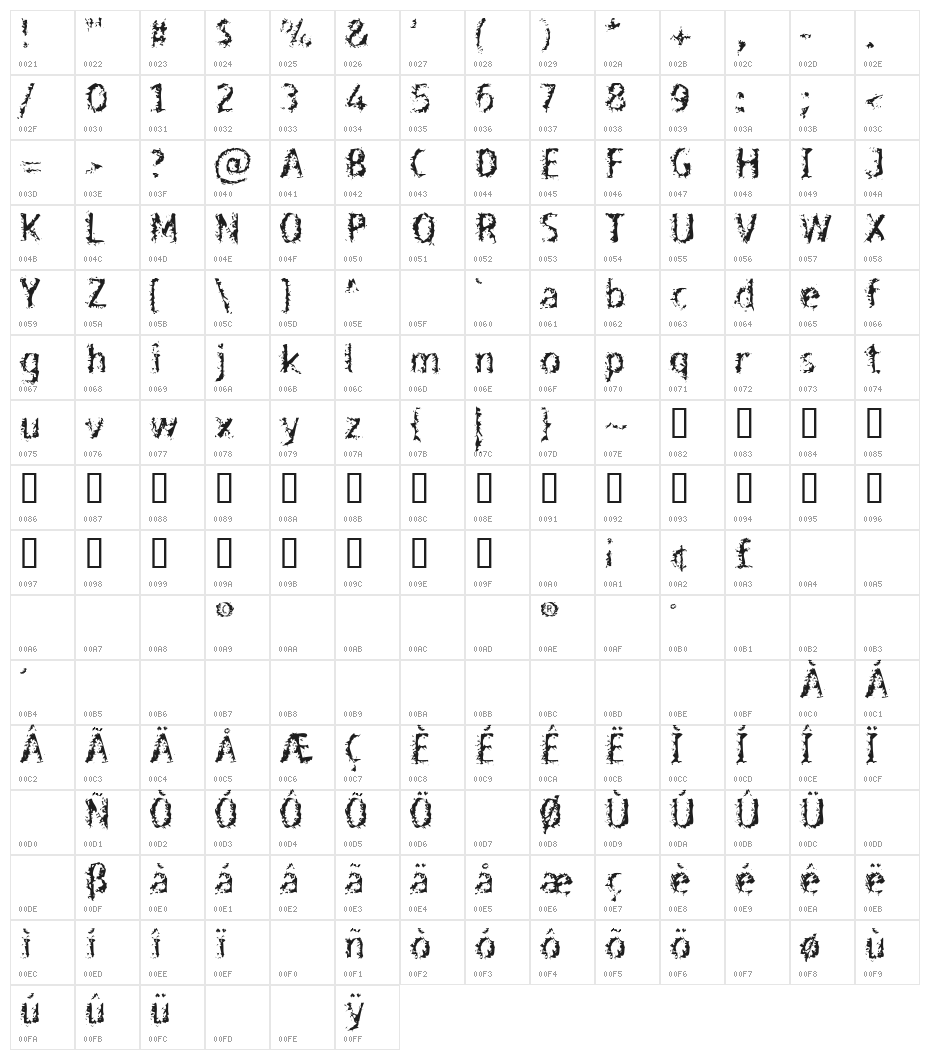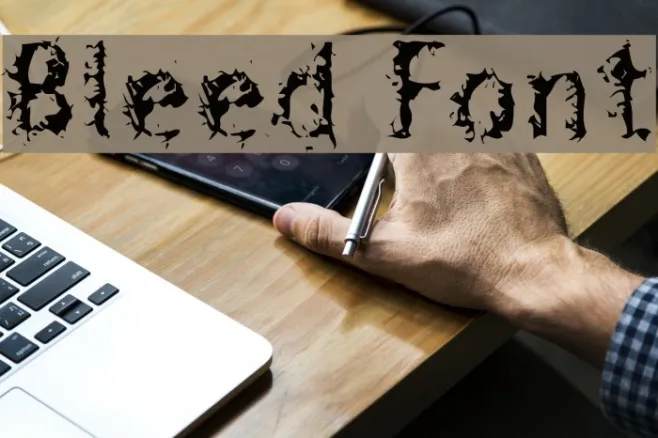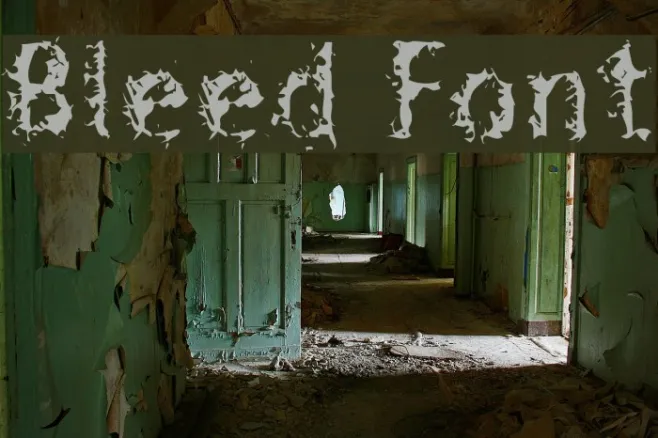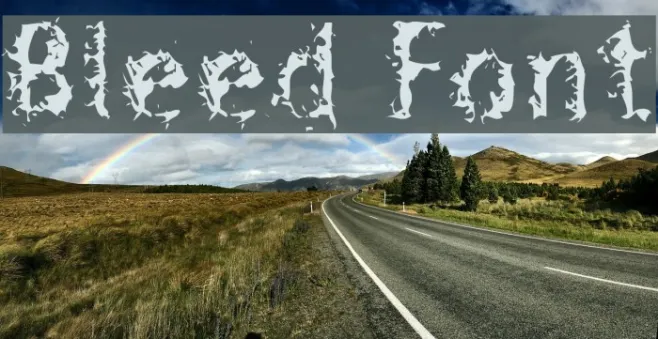
Bleed Font
Bleed Description
This font features a unique and edgy design with jagged, thorn-like elements protruding from each character. The letters have a distressed appearance, giving them a raw and chaotic feel. The uppercase and lowercase letters maintain a consistent style, with numbers and special characters following suit. The font's irregular edges and bold presence make it stand out, ideal for projects that require a dramatic and unconventional look. Its artistic and rebellious nature is perfect for creative designs that aim to capture attention and convey a sense of intensity.
| Use Case | Logos, Posters, Creative Art |
| Proposed Projects | Ideal for album covers, horror-themed posters, edgy branding, and creative art projects. |